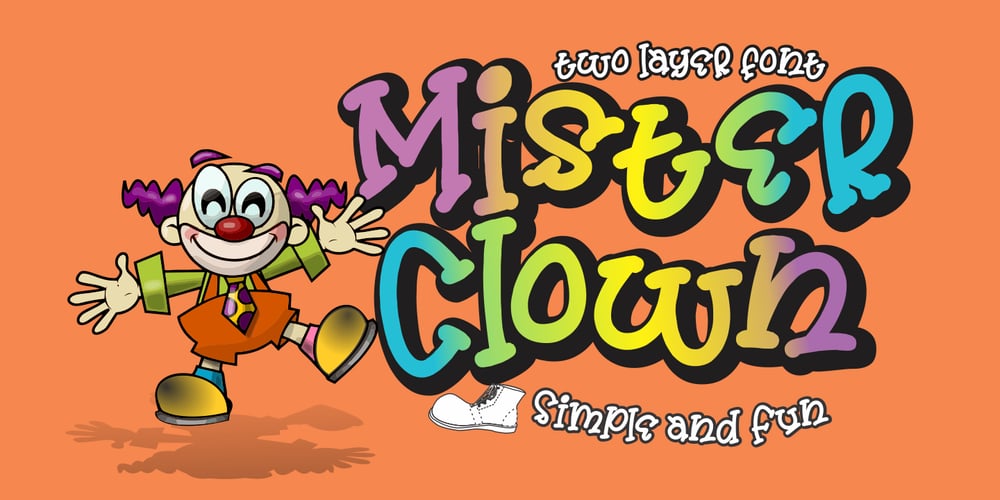
Mister Clown Font Family was designed by Daddi Daryawan and published by Creativework Studio. Mister Clown contains 2 styles and family package options. Mister Clown is a simple, fun and fresh font. Easy to apply to various products such as logos, product brands, t-shirt designs, birthday invitations because this font is very universal and has unique characteristics. This font has 2 layers so it will be more interesting when combined with the extruded style.